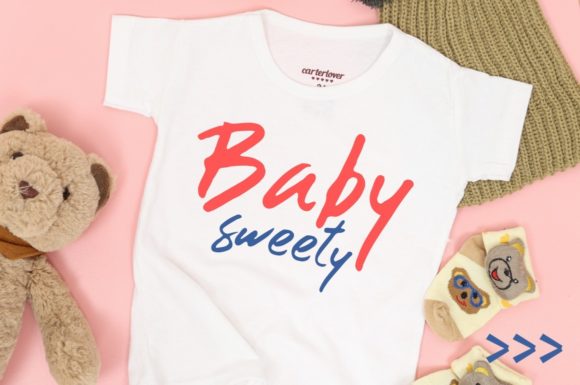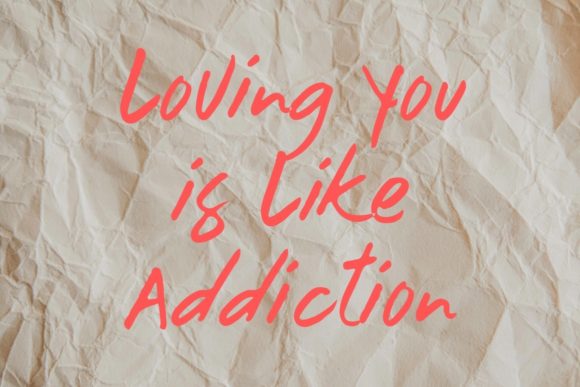
Manjane Font
db-ku.com - Script & Handwritten -- Manjane is an expressive handwritten font. Whatever the topic, this relaxed font will be a wonderful asset to your font library, as it has the potential to enhance any creation.